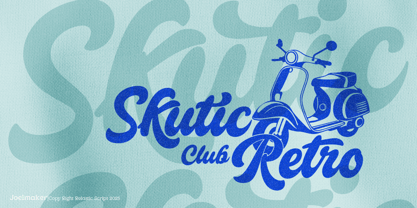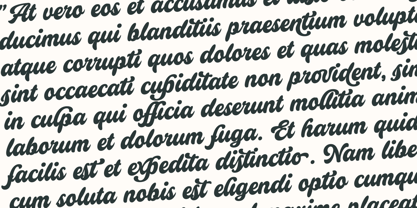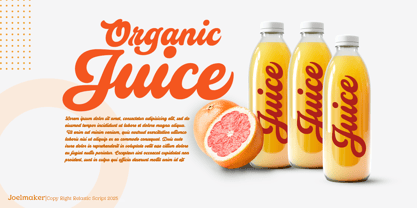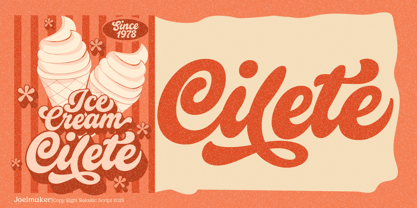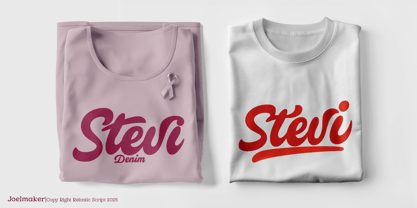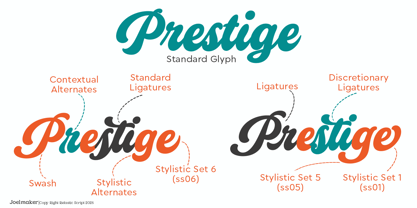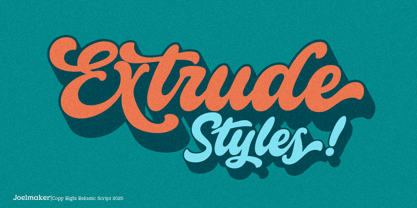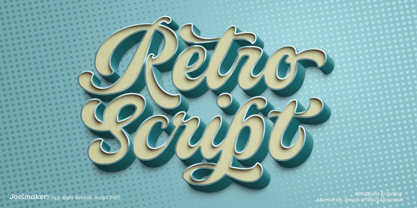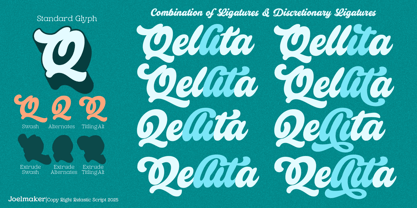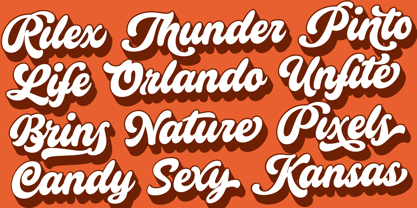
Relastic Script
by Joelmaker
The Relastic Script Font Family was designed by Joelmaker and published by Joelmaker. Relastic Script contains 2 styles and family package options.
Relastic Script and Relastic Extrude are two complementary typefaces designed to elevate modern branding and digital design projects. Together, they offer a dynamic fusion of elegance and boldness, enhanced by unique ligatures and discretionary ligatures that add a touch of personality to any composition. Relastic Script is a refined handwritten script font characterized by its flowing curves and high contrast strokes. Its design exudes sophistication, making it ideal for projects that require a personal yet polished touch, such as wedding invitations, luxury branding, and editorial layouts. The font includes a comprehensive set of ligatures and stylistic alternates, allowing for seamless letter connections and a more cohesive appearance. Relastic Extrude, on the other hand, introduces a bold, three-dimensional effect to the design. This extruded style adds depth and emphasis, making it perfect for headlines, logos, and posters that aim to capture attention. The geometric, angular design with consistent stroke widths ensures a strong visual impact, while the extruded effect gives the text a modern, dynamic feel. When combined, Relastic Script and Relastic Extrude create a harmonious contrast between elegance and strength. The flowing script pairs beautifully with the bold extruded letters, allowing designers to craft compositions that are both stylish and impactful. The inclusion of unique ligatures and discretionary ligatures further enhances the versatility of these fonts, enabling designers to customize and refine their typography to suit various design needs. Furthermore, this typeface showcases a diverse range of letters and supports multilingual characters, making it accessible for global usage. The large set of stylistic alternates allows users to create unique variations of letters to enhance the individuality of their designs. For example, letters like "R," "L," and "P" can be customized to feature subtle differences that add more personality to the text. Whether used individually or together, Relastic Script and Relastic Extrude offer a comprehensive typographic solution for contemporary design projects. Their unique features and complementary styles make them invaluable tools for designers seeking to create memorable and visually striking compositions.